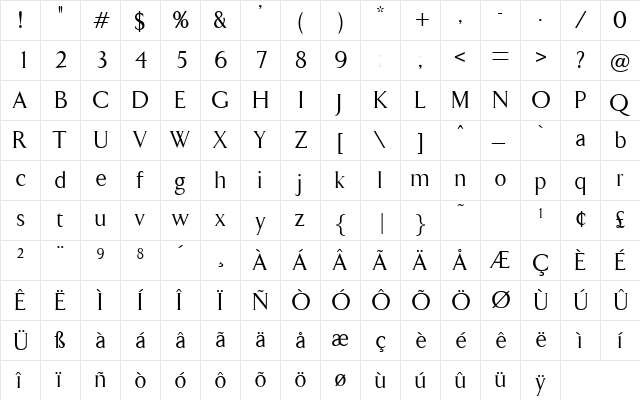
Lapidary Regular Font Preview
Lapidary Regular
Design Context for Lapidary Typeface
Lapidary takes a measured approach to typography — its balanced proportions and neutral character make it a reliable workhorse for both digital and print work.